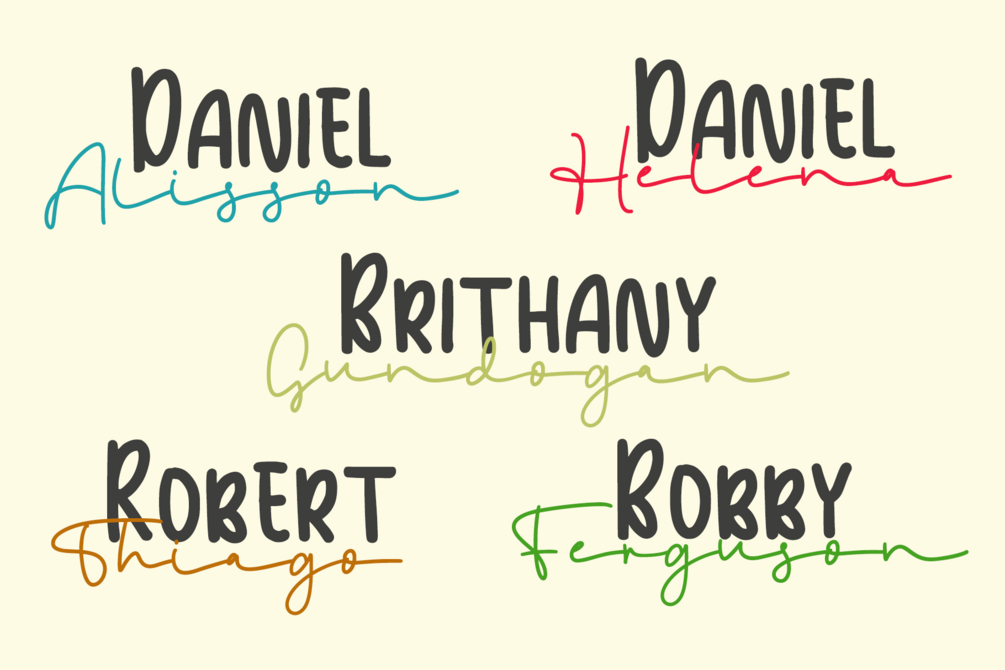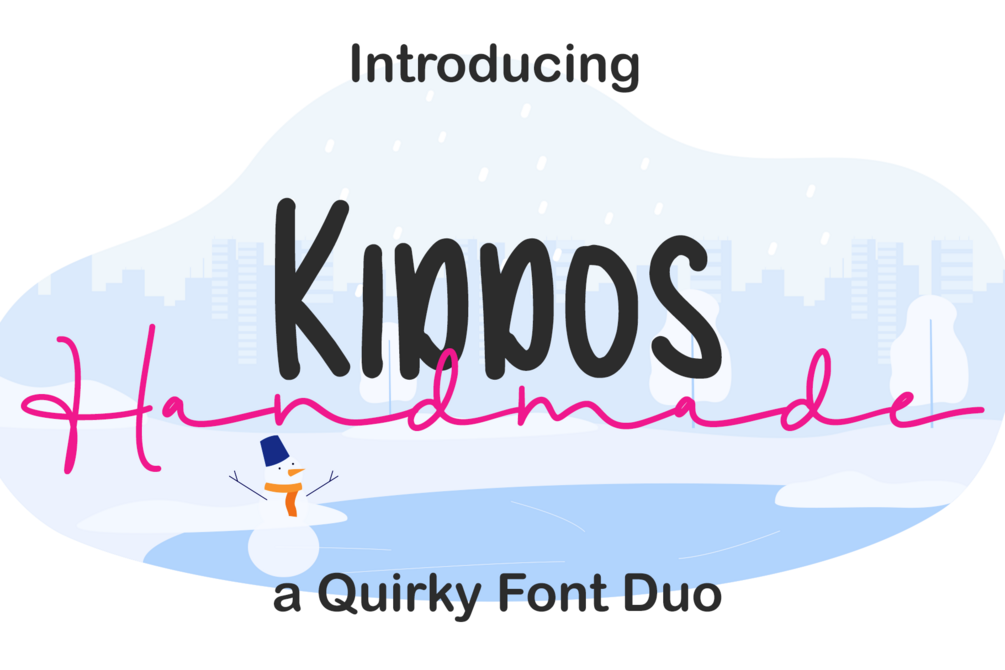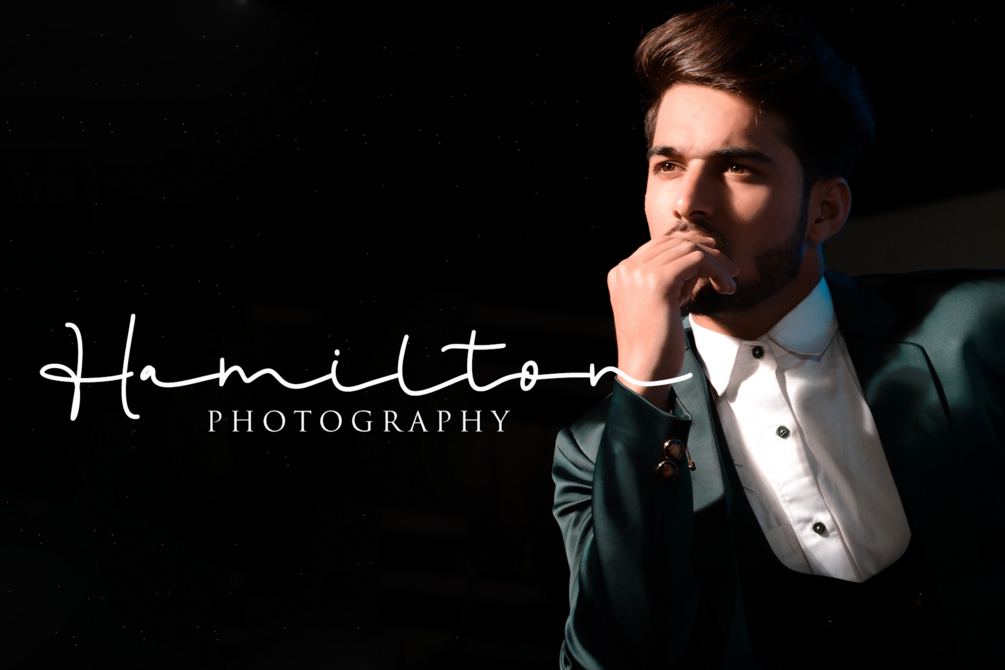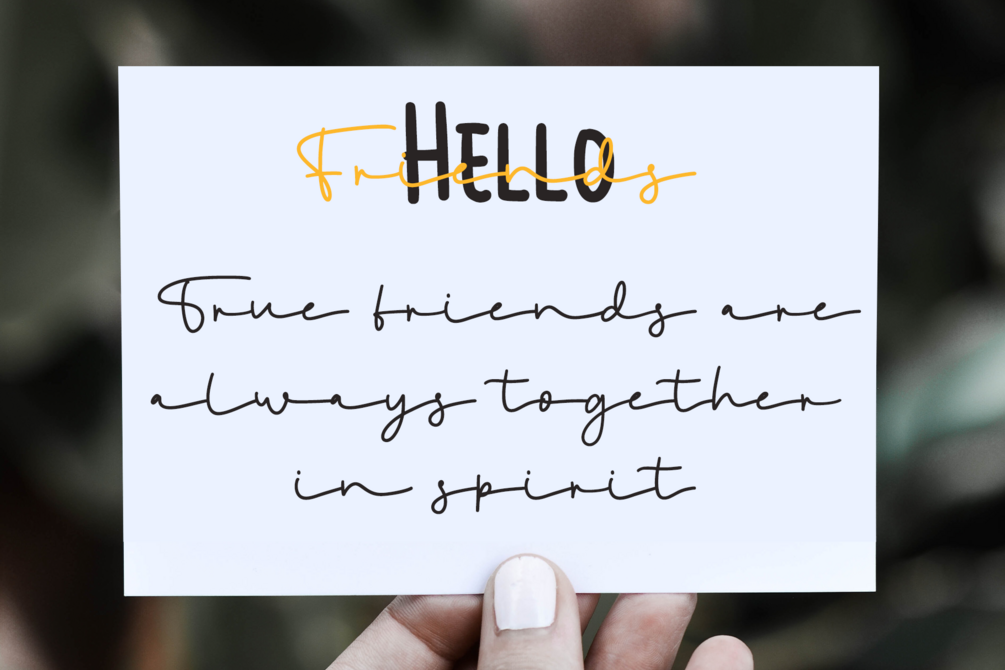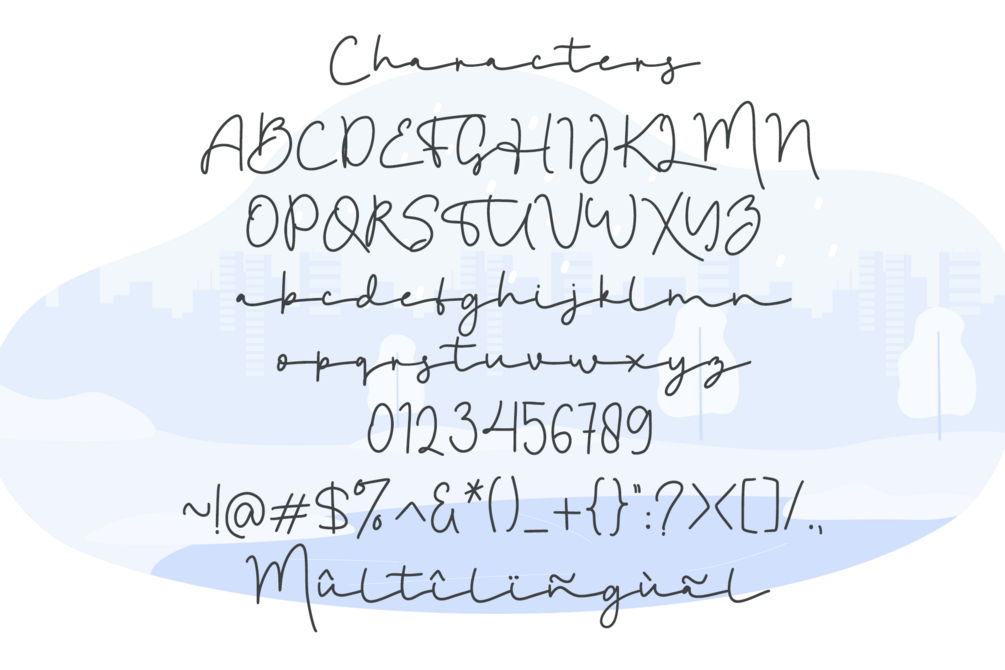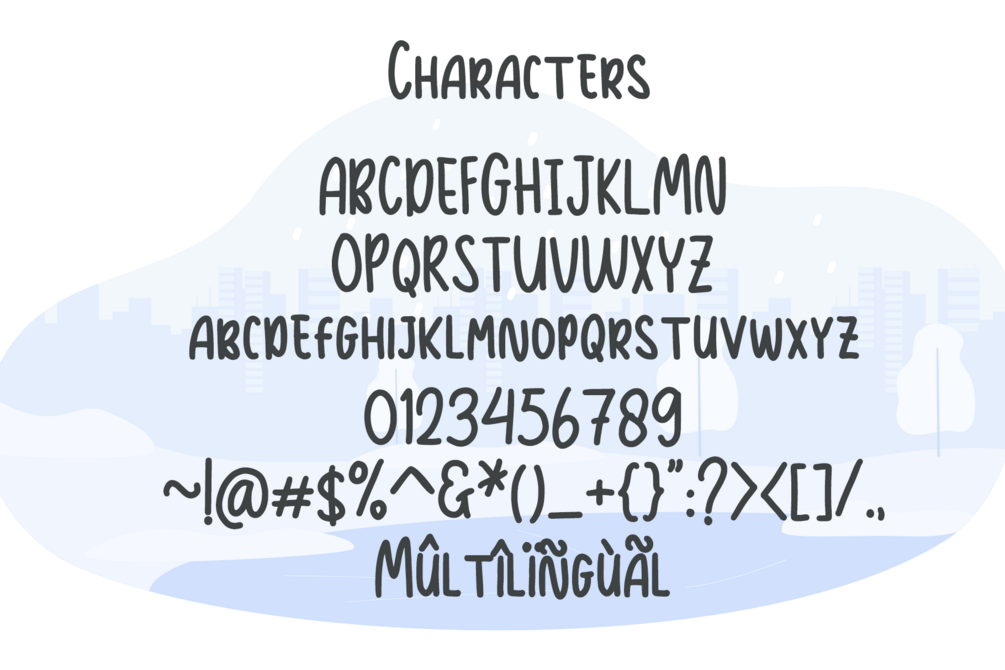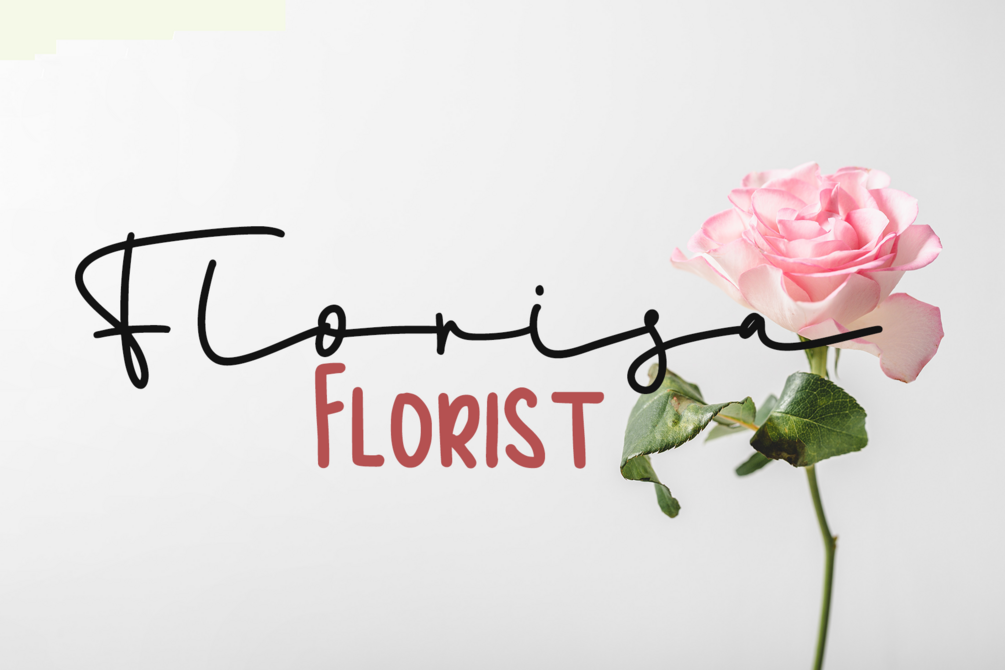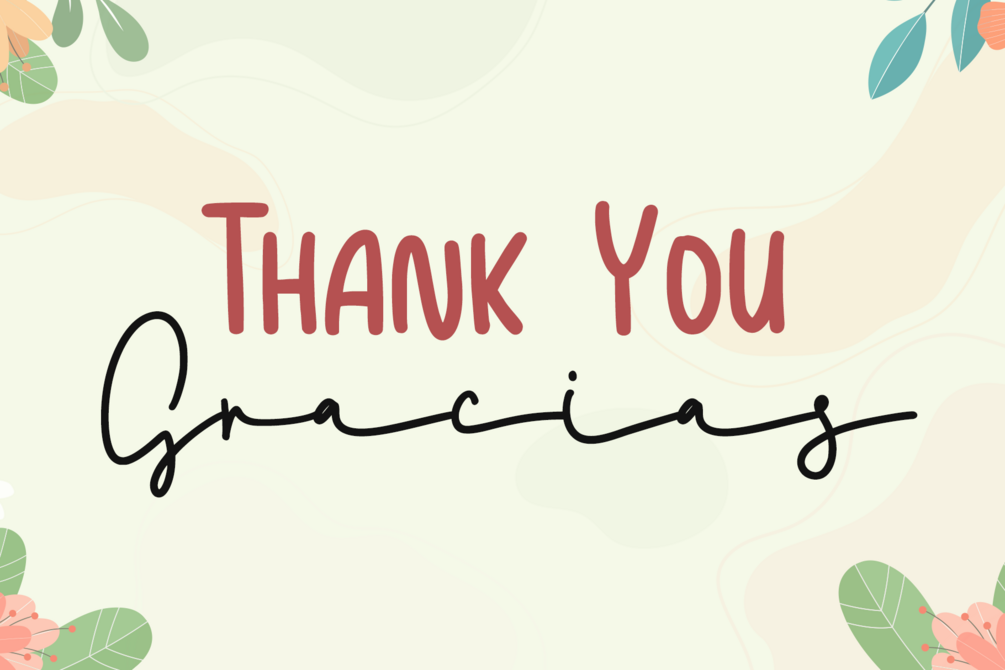
Kiddos Handmade - Elegant & Dainty Font Duo
Kiddos Handmade is a dainty font duo combining elegant handwritten script with modern sans serif β€” perfect for kids branding, wedding stationery, greeting cards, packaging design, letterheads, social media quotes, and craft projects. This PUA encoded font duo gives you full access to all glyphs β€” no extra software needed.
• Ligatures
• Multilingual Support